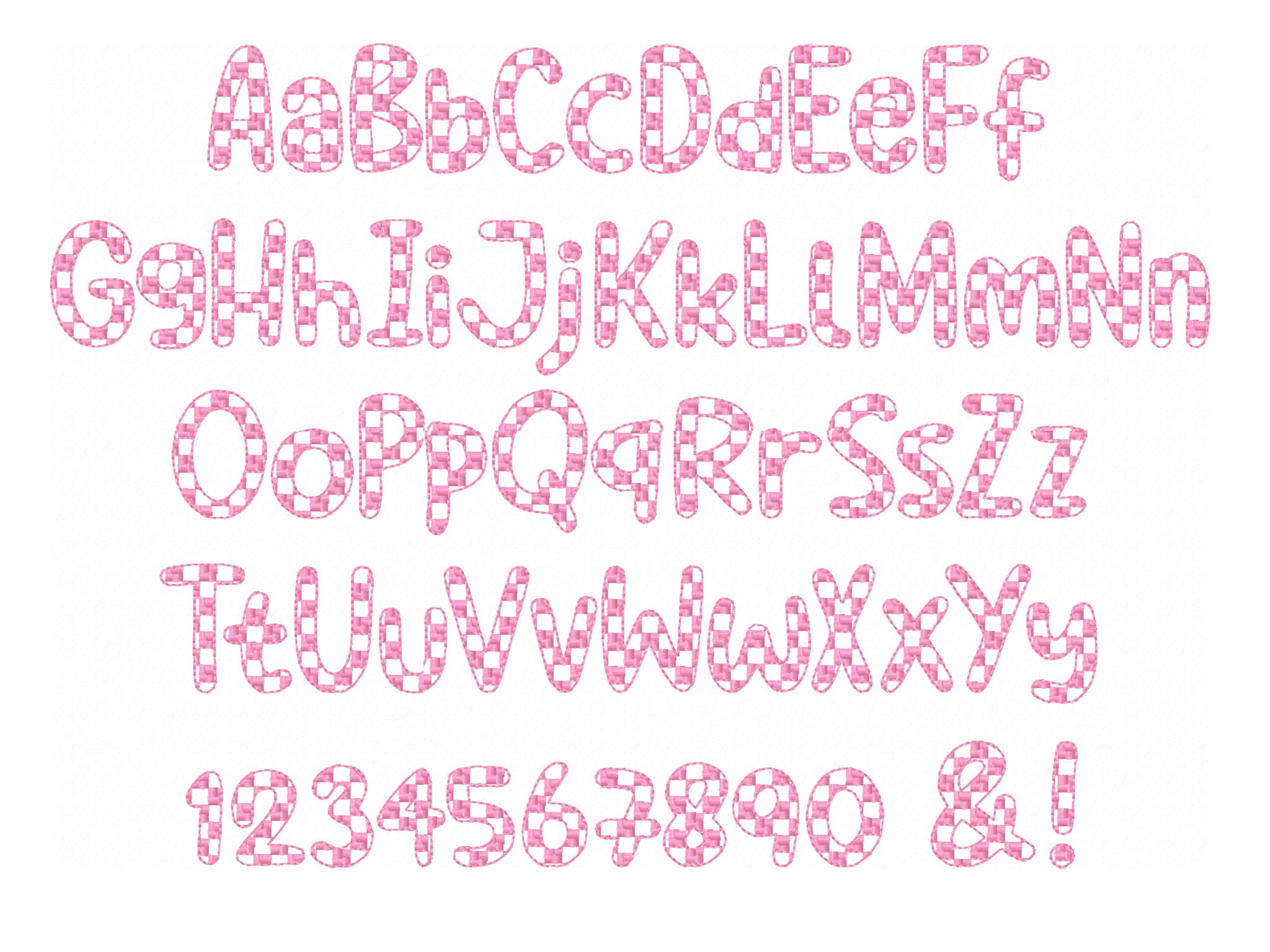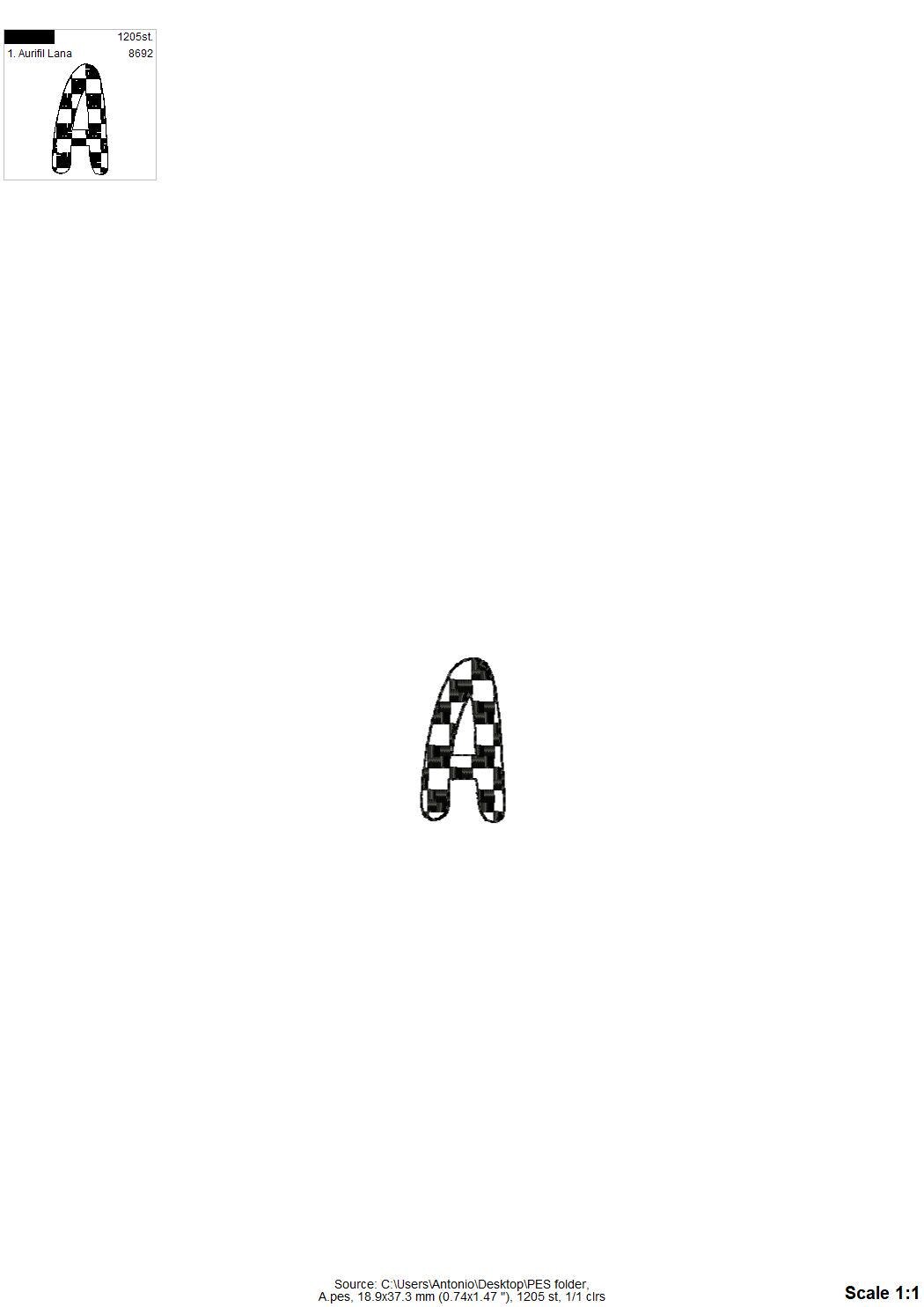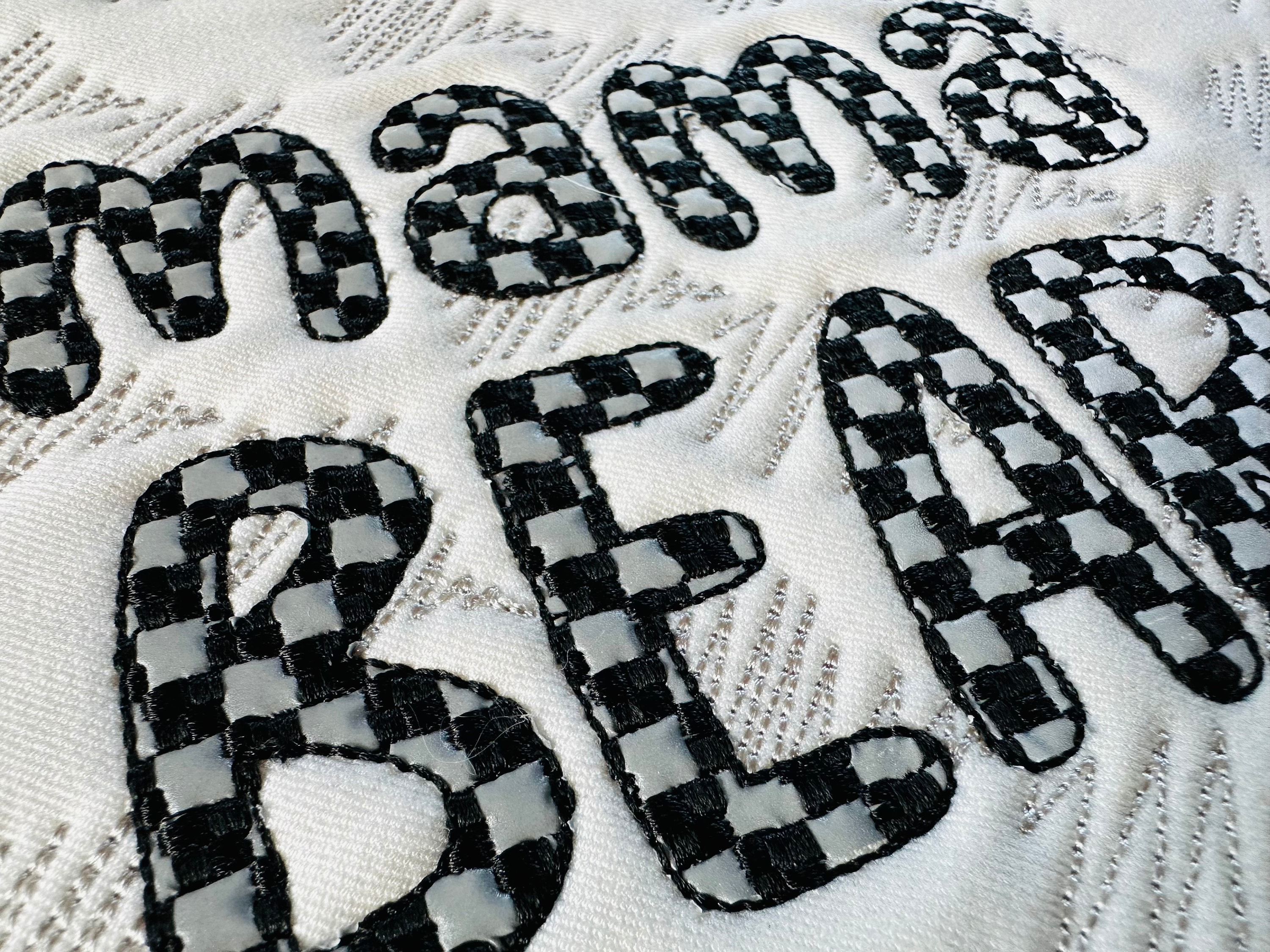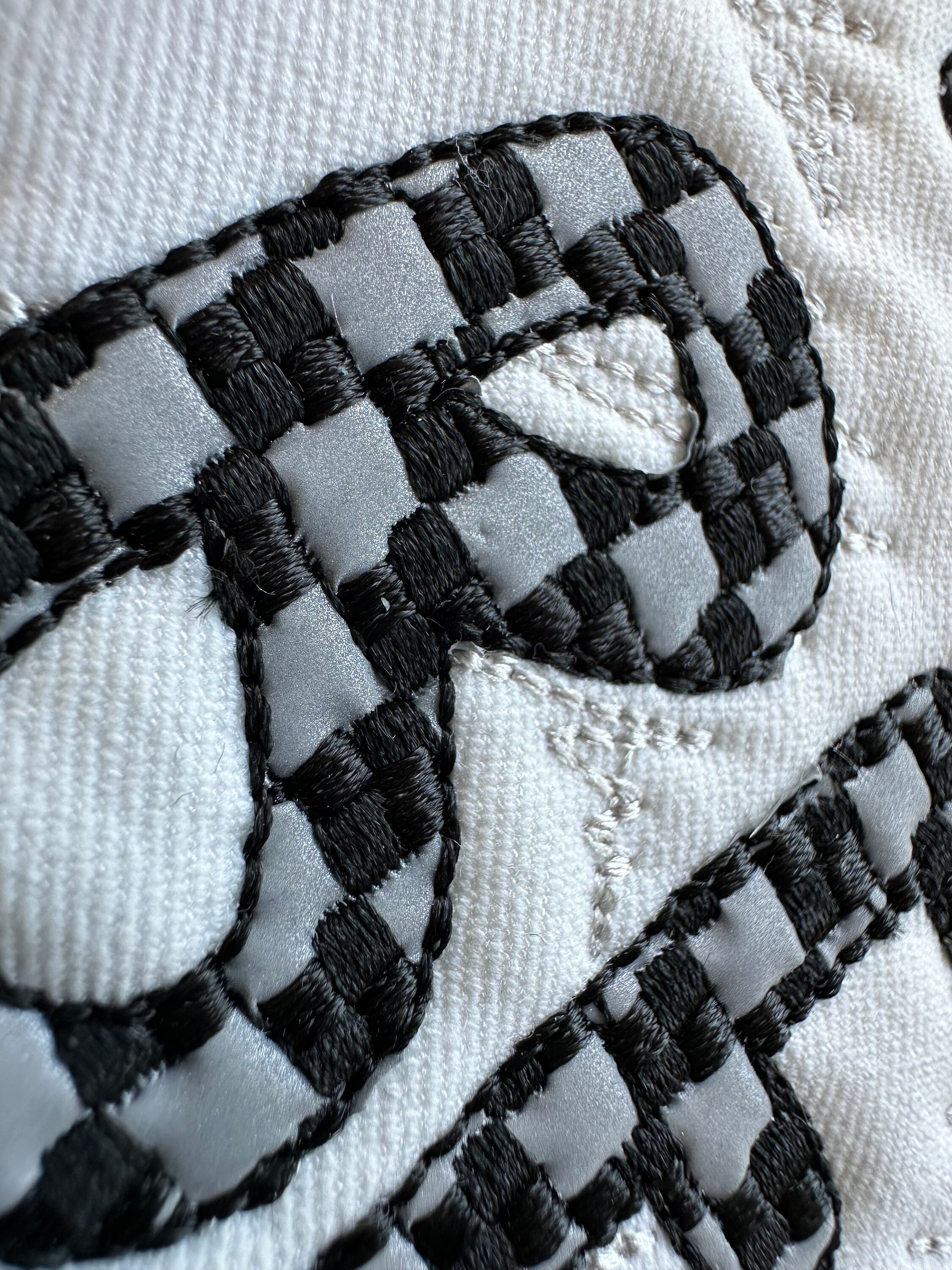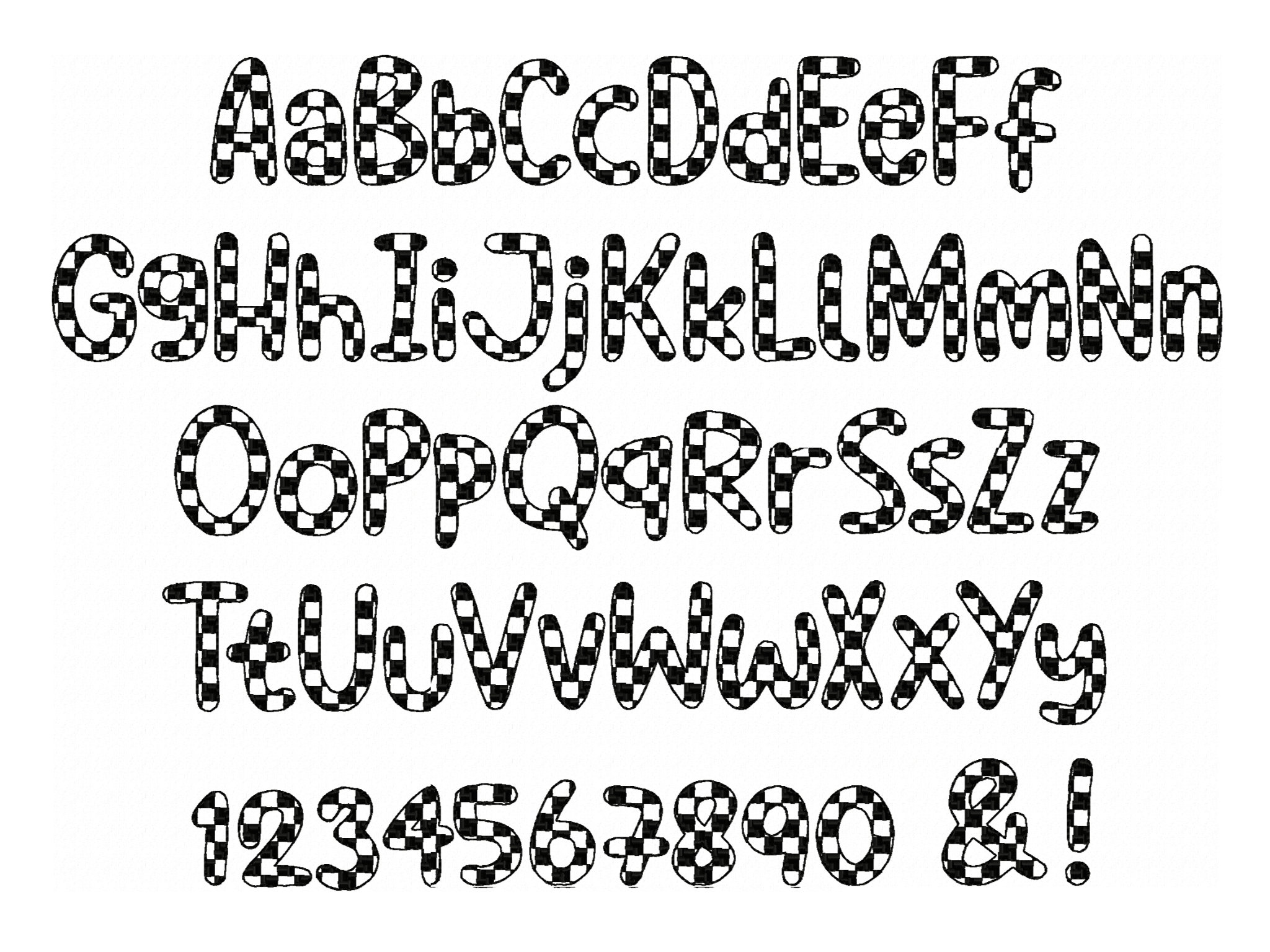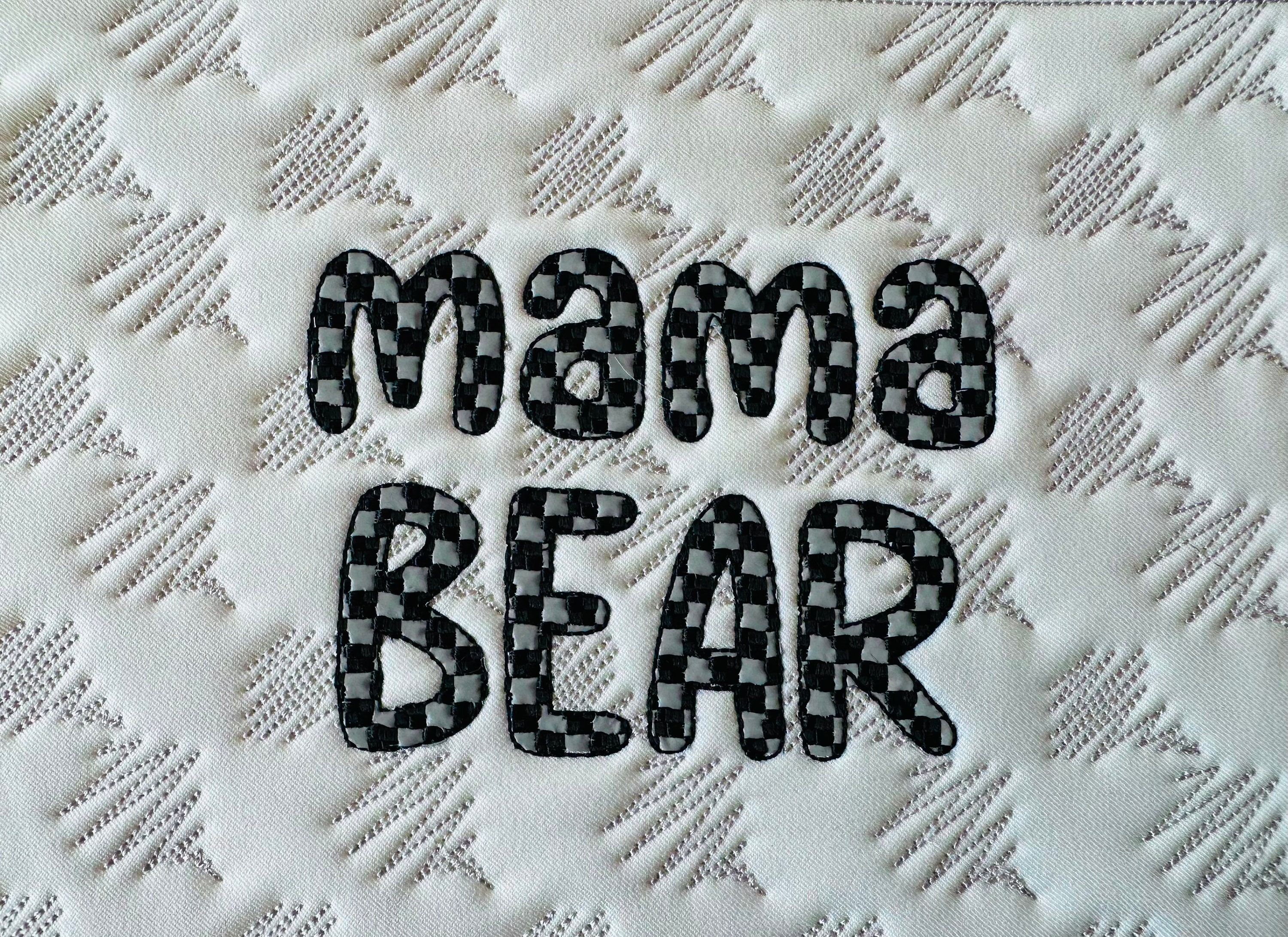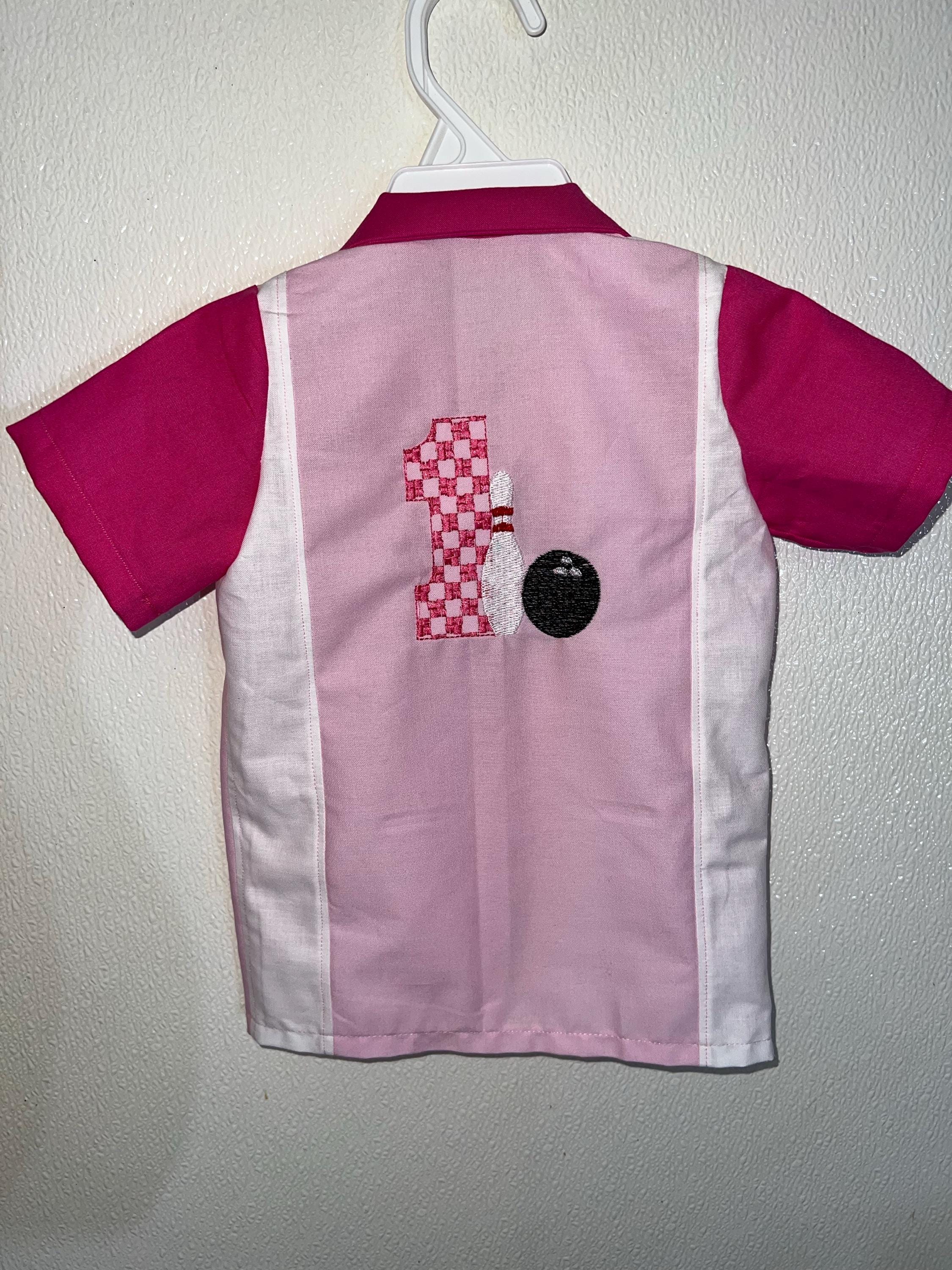
Checks Patterned Font 1 color Alphabet letters numbers machine embroidery designs chess pattern checkers checkered Font sizes 0.7 to 2.5inch
The font is transparent, it has fill stitch checks and a bean stitch outline. The HTV vinyl was used as raggedy edge applique fabric, but this is optional.
Whole alphabet uppercase and lowercase letters Aa-Zz, numbers 0-9, and punctuation.